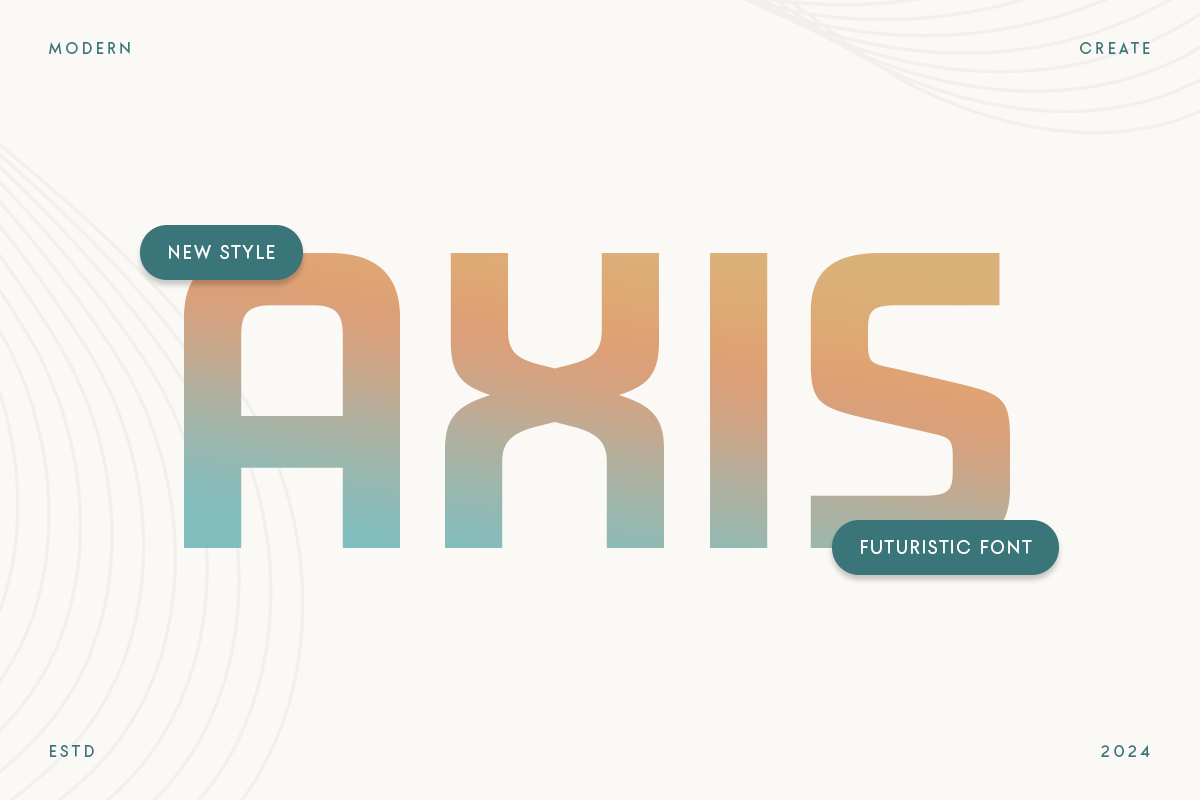
Axis - Modern Unique Futuristic Font
Elevate your futuristic designs with Axis - a sleek modern techno font built for tomorrow's creative projects. This contemporary sans serif typeface delivers the perfect balance of sophistication and cutting-edge style for technology, sci-fi, and futuristic design applications. Whether you're crafting compelling logos, eye-catching headlines, or standout typography for film and space-themed projects, Axis brings that essential modern edge to showcase your vision. The font's clean geometric struc...